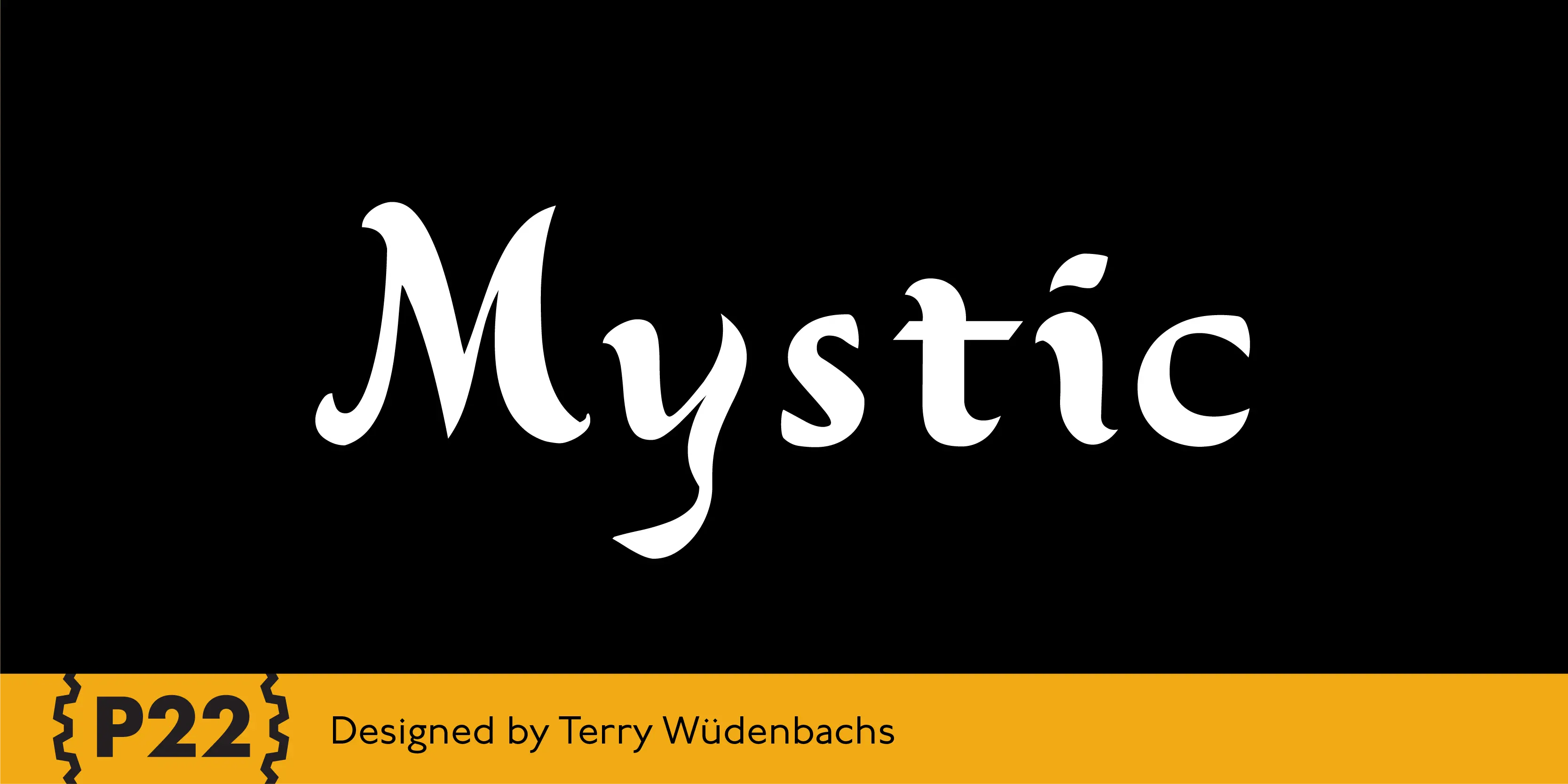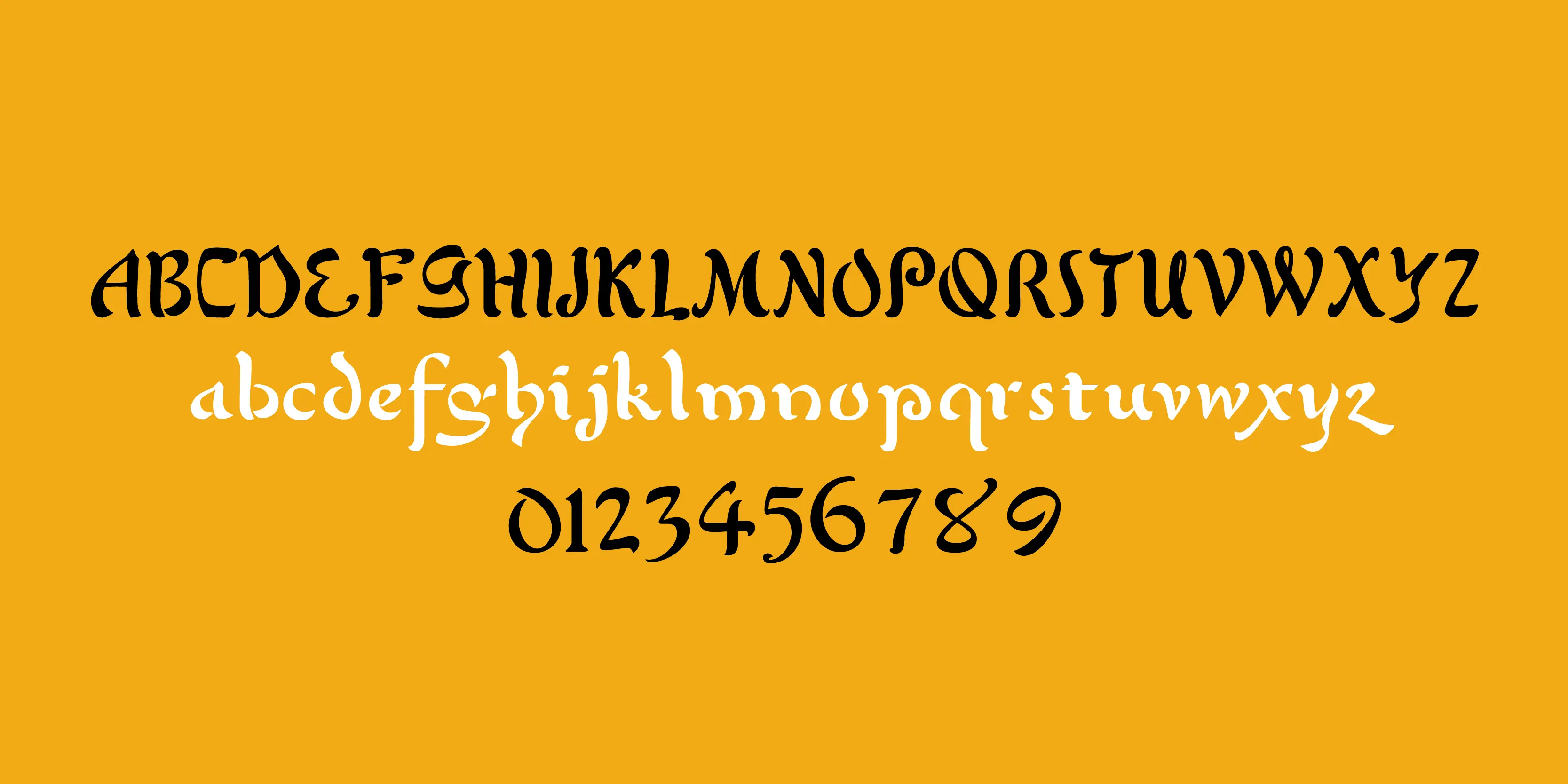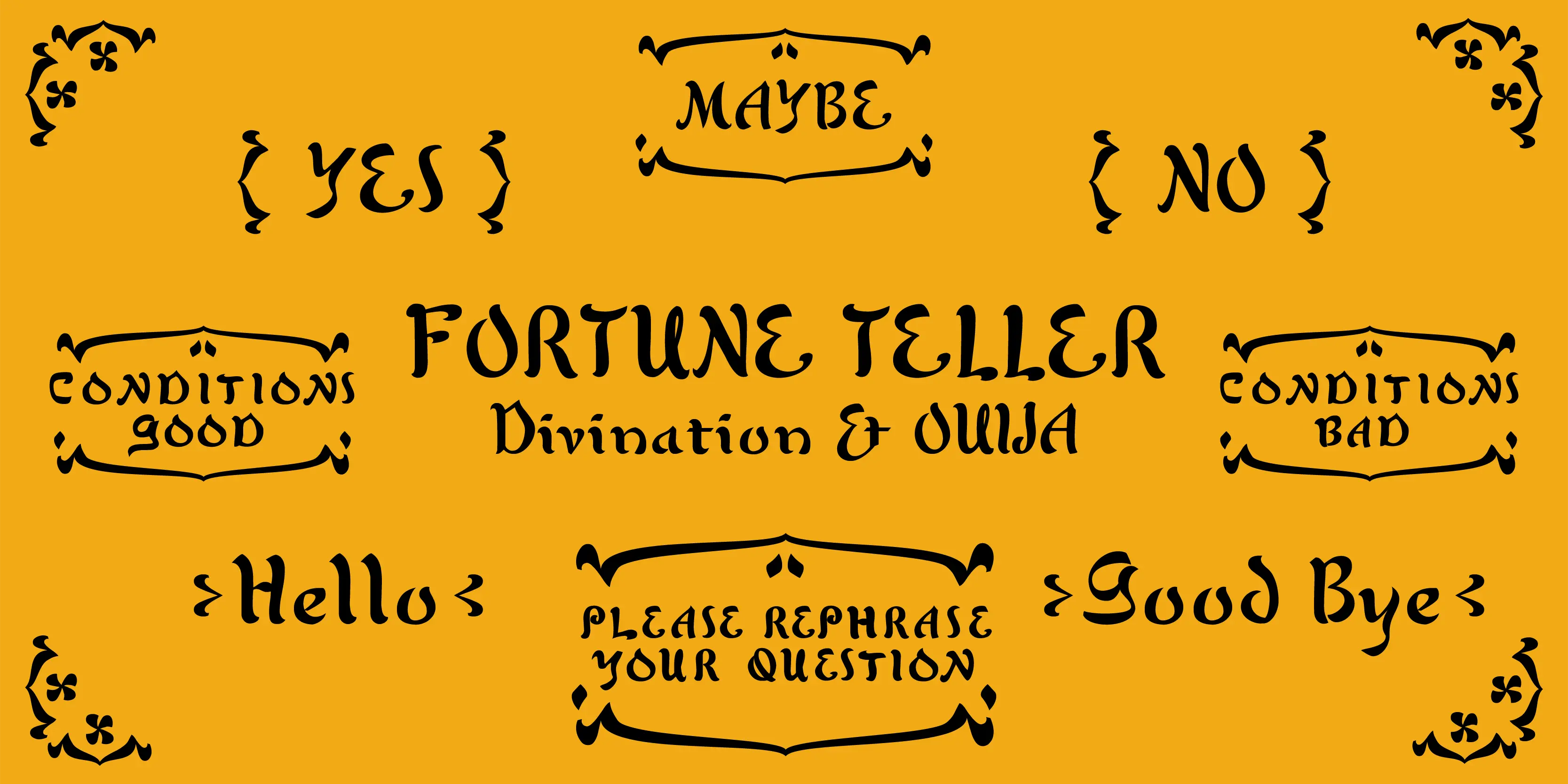
Mystic Font
Mystic
A truly mysterious and unique font invokes the look of the middle-east and that can actually tell your fortune! The OpenType Pro version really does work sort of like a magic eight-ball: while you have Contextual Alternates turned on — and type in any question followed by a question mark — it will give you an answer. Really! All this plus small caps, oldstyle figures, and ligatures.
• Old Style Numerals
• Small Capitals
• Small Capitals for Capitals
Oldstyle Figures
Small Capitals
Small Capitals from Capitals